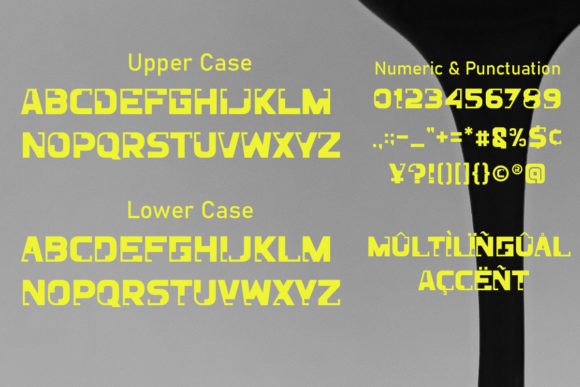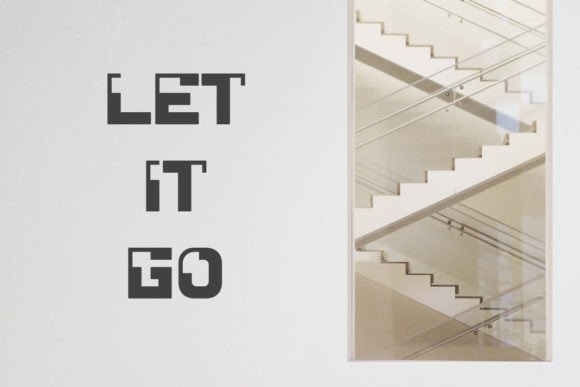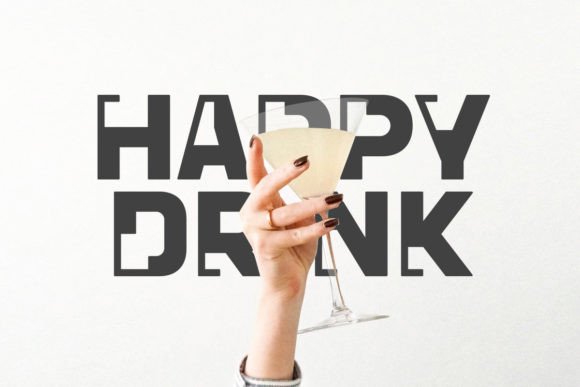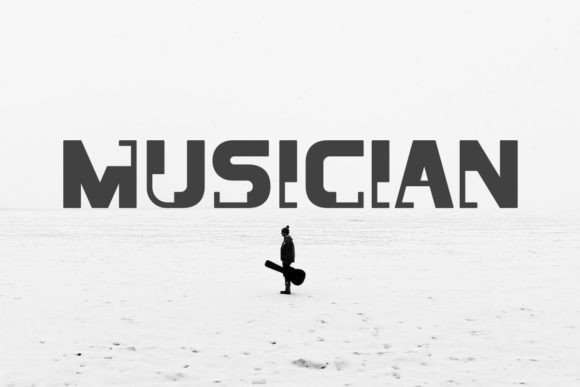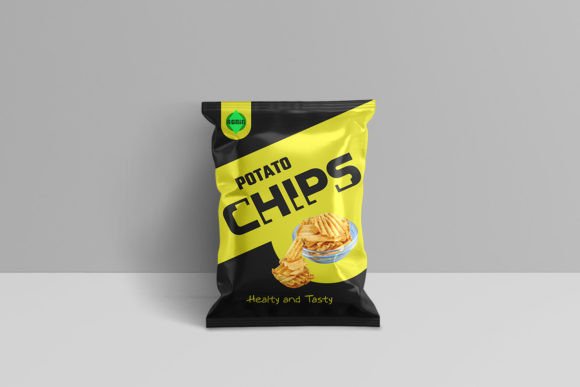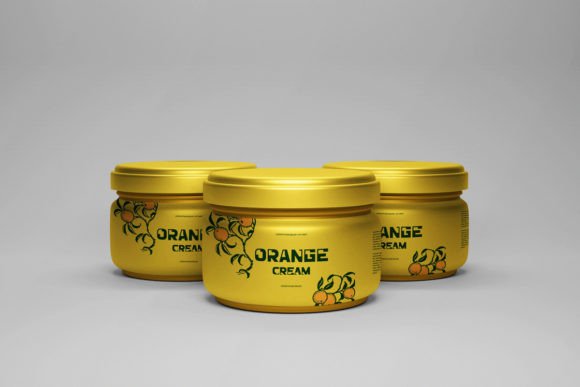
Introduction to Lifters Font
Lifters is a unique and modern display font.
Lifters will work perfectly for logos, branding, advertising, and any kind of project .
Key Features of Lifters Font
Why Choose Lifters Font?